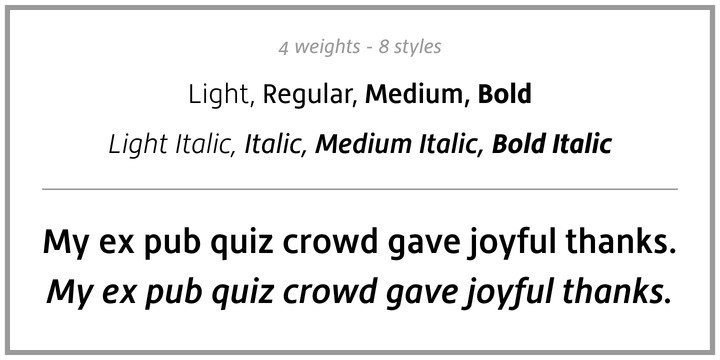
Hedley New
Hedley New is an eye catching reconstructed relative of Hedley. It was originally released in the year 2004. The super clean, innovative, simple charm of the typeface has helped it develop into a stylish, sparkling, and highly functional sans. Since the typeface is fully re-drawn, using new spacing and kerning, it works well for those who wish to enjoy a unique writing style.
This is an Opentype font containing small caps, proportional, tabular, and old style numerals, and ligatures.